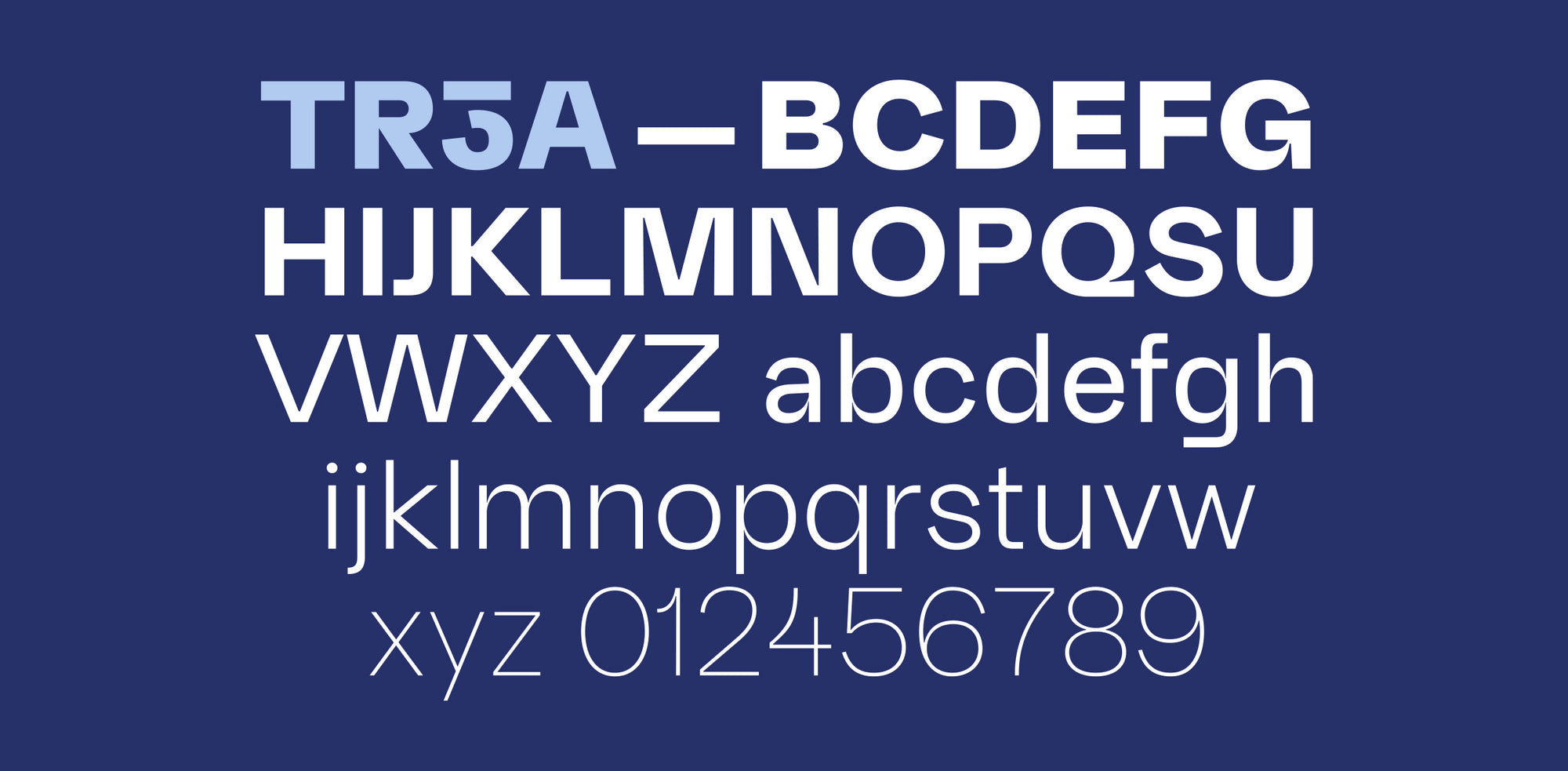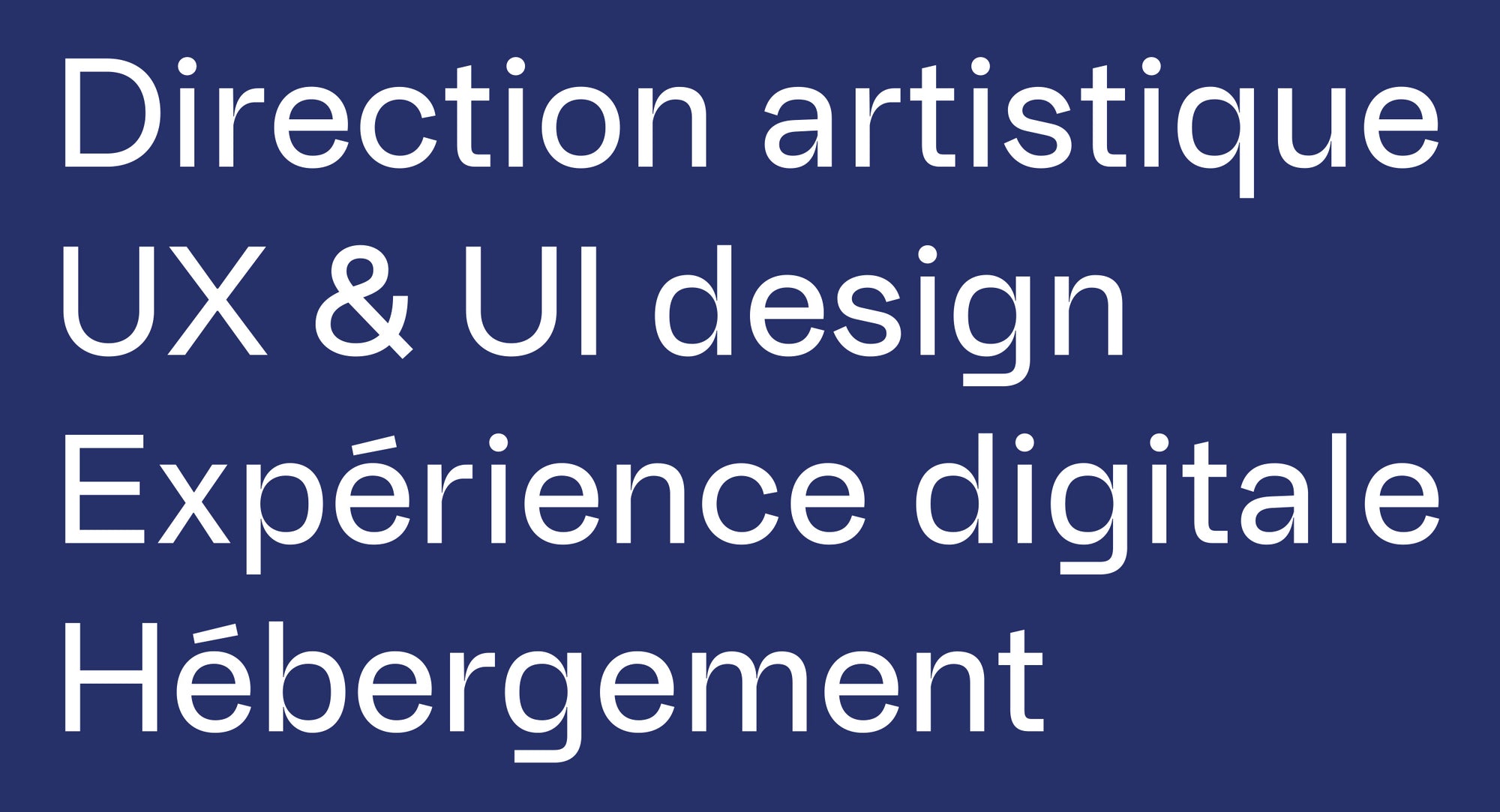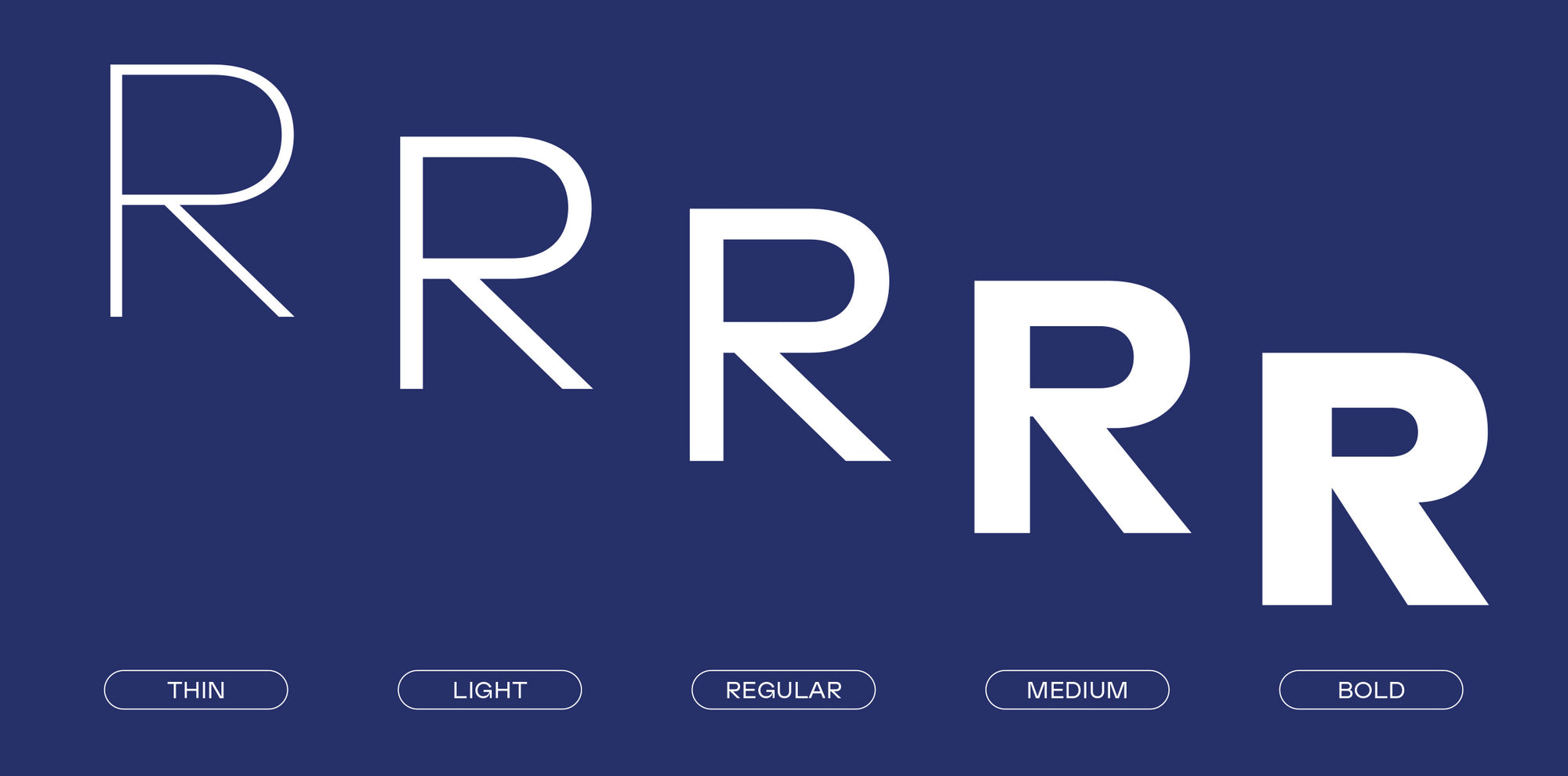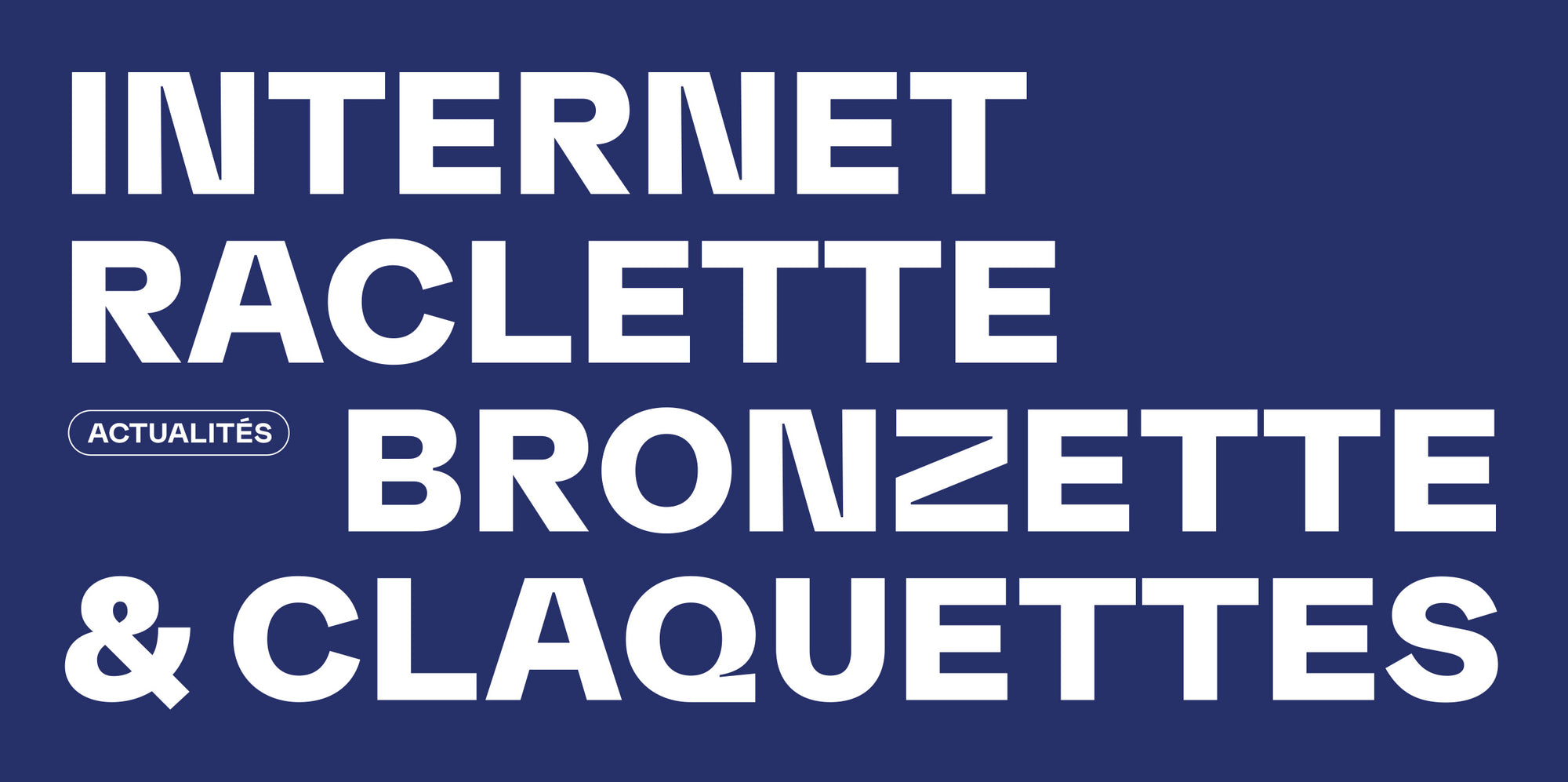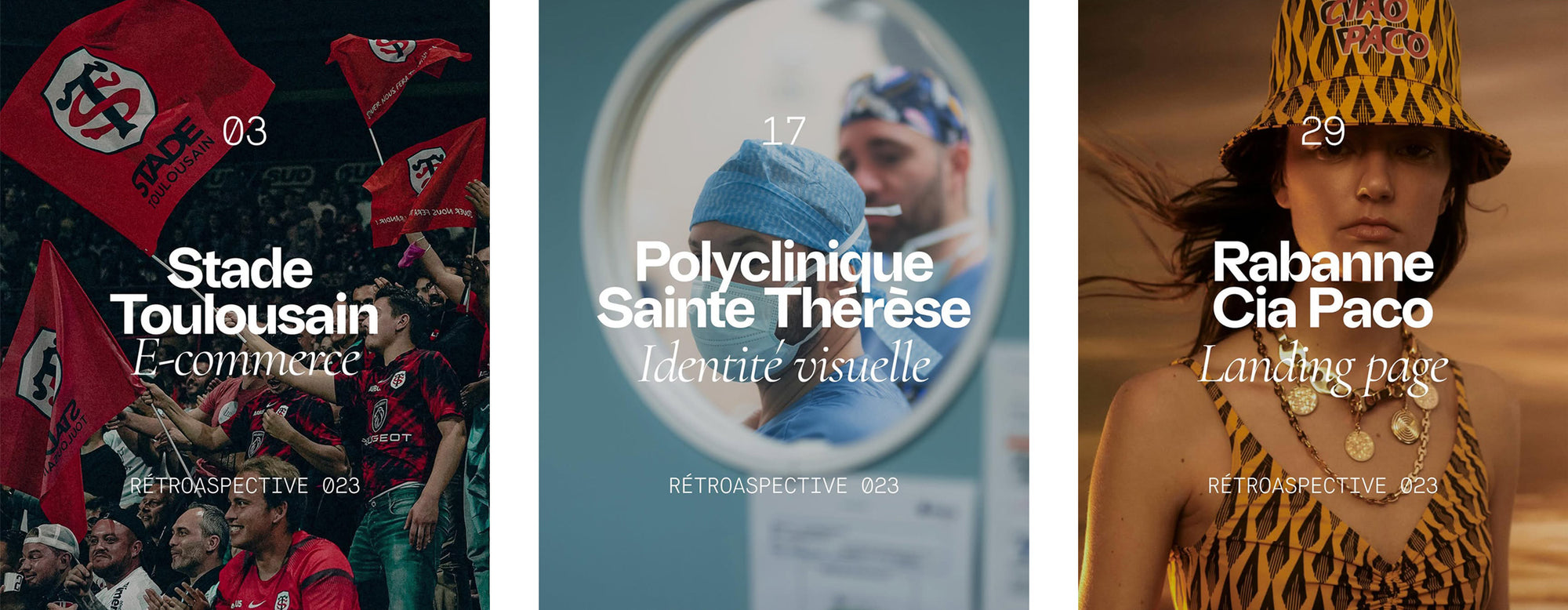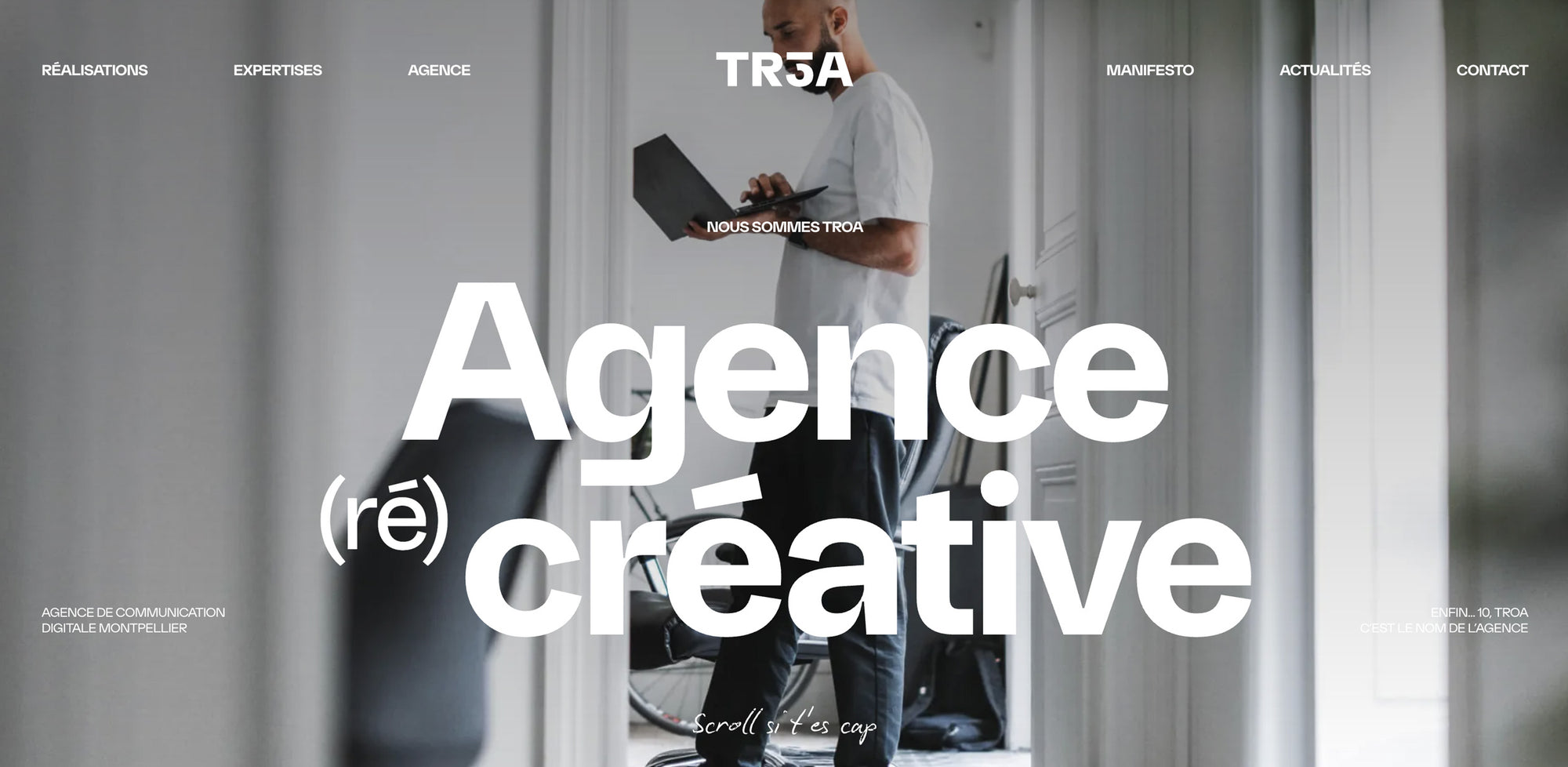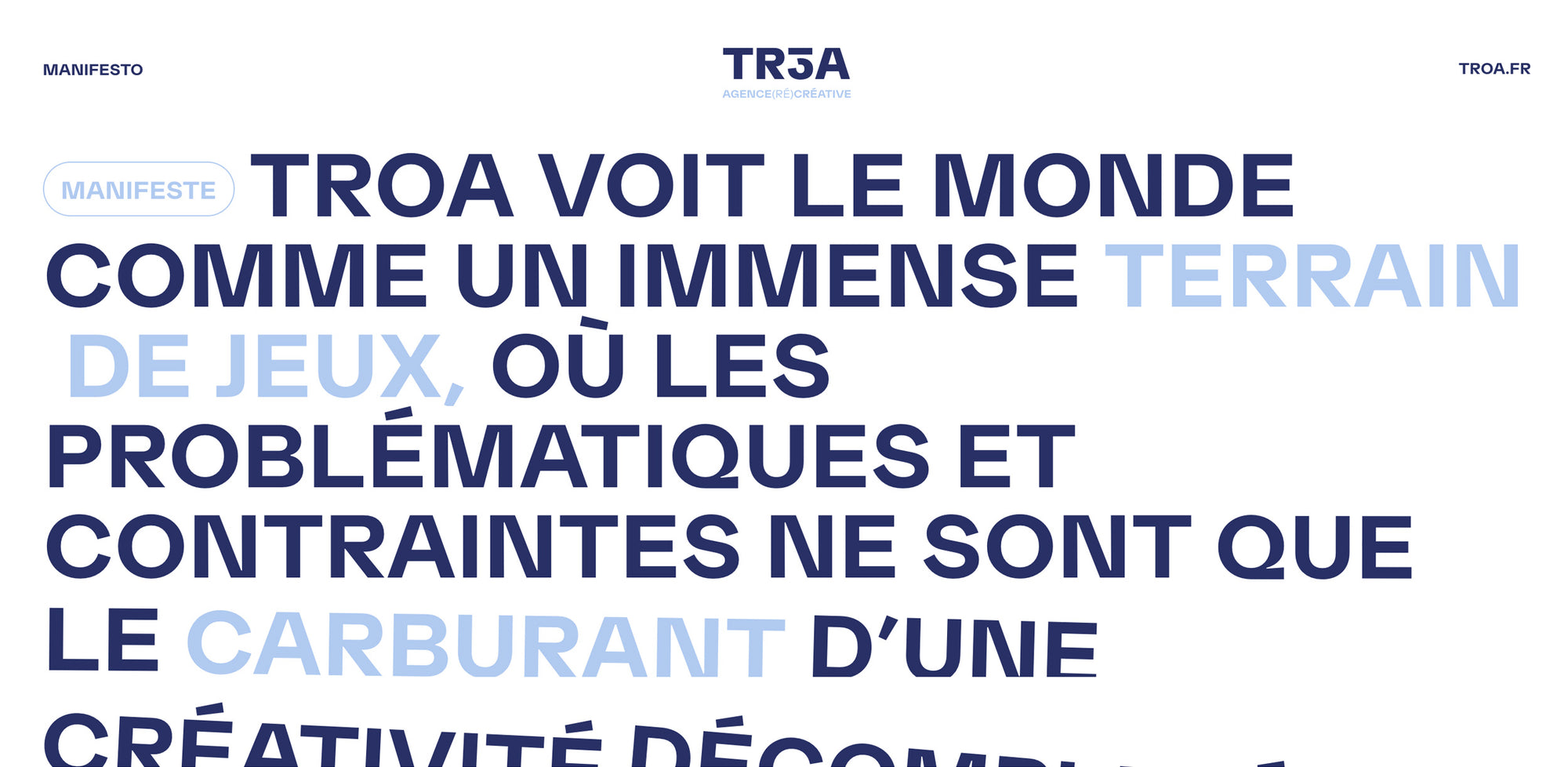
TROA Digital
Custom typeface
In 2019, we created a custom typeface to support the new visual identity of the digital agency Troa. The goal was to design a typeface that reflects the agency’s dual personality: professional and inventive, technical and expressive.
The result is a contemporary sans-serif, available in five weights, built as a versatile and coherent typographic tool. Its design features prominent inktraps, enhancing both legibility at small sizes and visual character at larger scales.
Balanced, precise, and distinctive, this typeface mirrors Troa’s approach — methodical in form, yet open to experimentation. It now stands as a core element of the agency’s visual language, adaptable across all media.